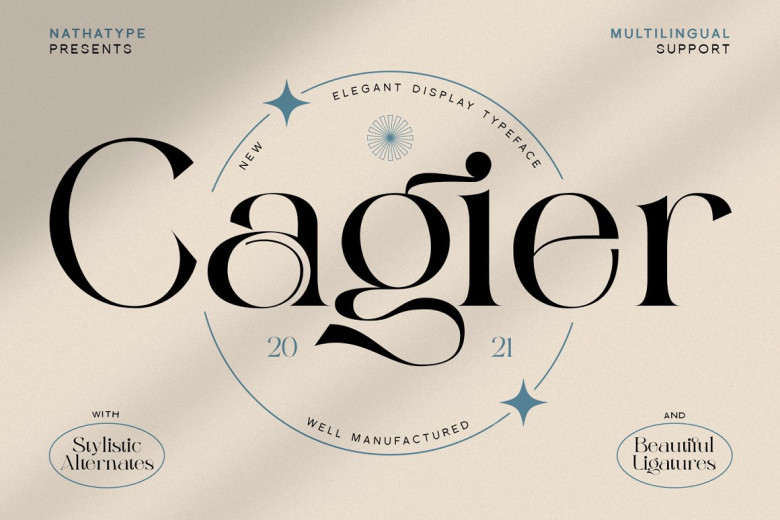
Cagier Font
Cagier is an elegant and timeless display font. Combining classical features with modern aesthetics, this classic vintage font creates the ideal base for whatever design project. Cagier can be found most commonly used in logos, headings and branding materials as well as magazine book covers,
album cover art film apparel design invitations posters flyers greeting cards, printed quotes, packaging for products etc – Cagier will help bring out the essence that makes up design! The font we use always comes equipped with multilingual support to expand reach.
Cagier Serif Font